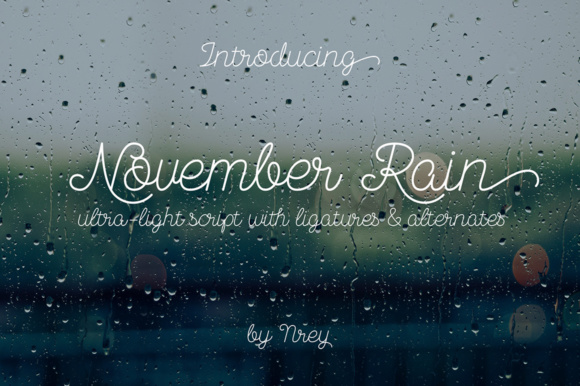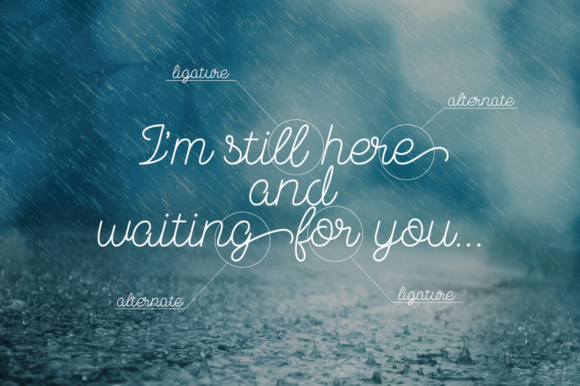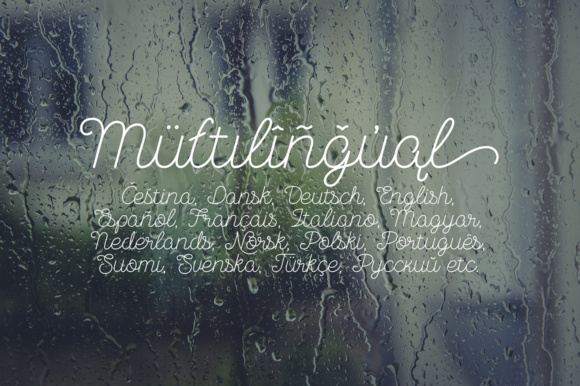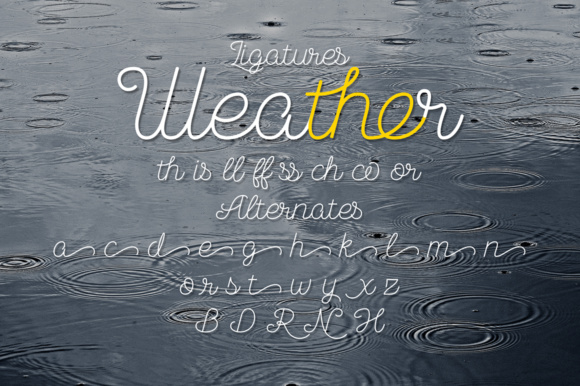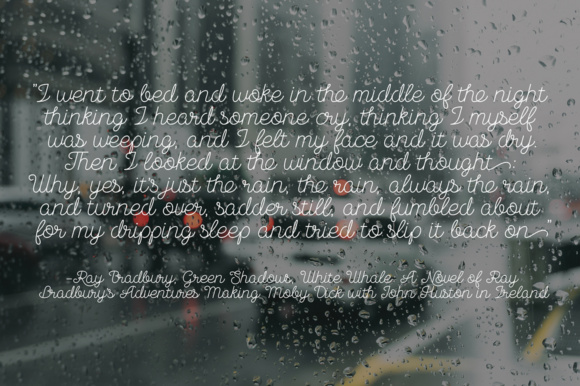
November Rain Font
About November Rain Font
November Rain is a beautifully simple script font, ideal for use in a wide set of projects. This clean monoline font is a great way to add some intrigue to your works.